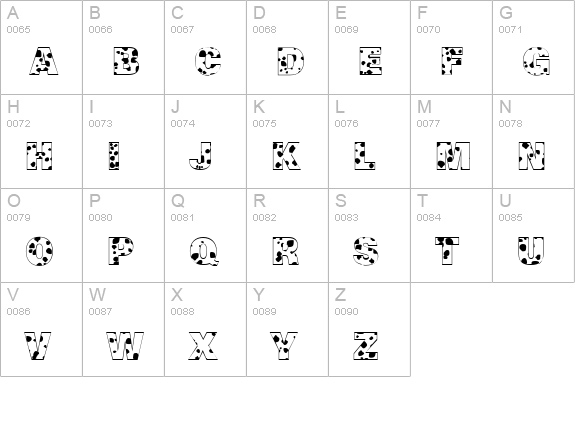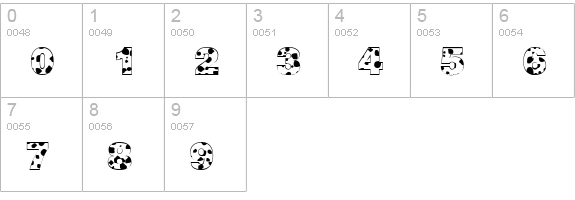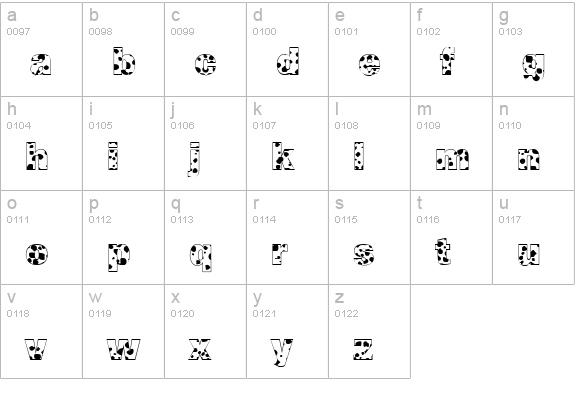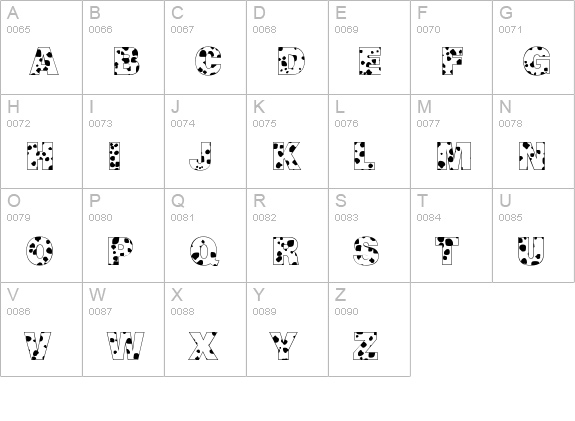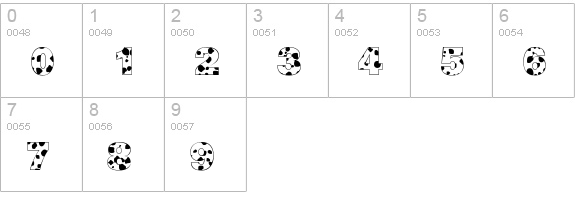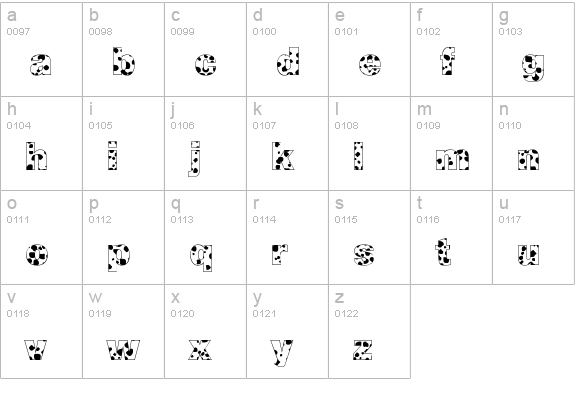
Cow-Spots Regular Font Details
Cow-Spots Regular is the standard, neutral variant in the Cow typeface family \xE2\x80\x94 well suited to general body text, paragraphs, and standard typographic work.
Cow-Spots Regular font is a charming and playful typeface that will add a touch of whimsy to any design project. With its unique spots scattered throughout each letter, this font is sure to stand out and make a statement. Perfect for children's books, greeting cards, posters, and more, Cow-Spots Regular is versatile and eye-catching. What's even better is that Cow-Spots Regular font is available for free download at FontsMarket.com. So go ahead and unleash your creativity with this fun and delightful font today!